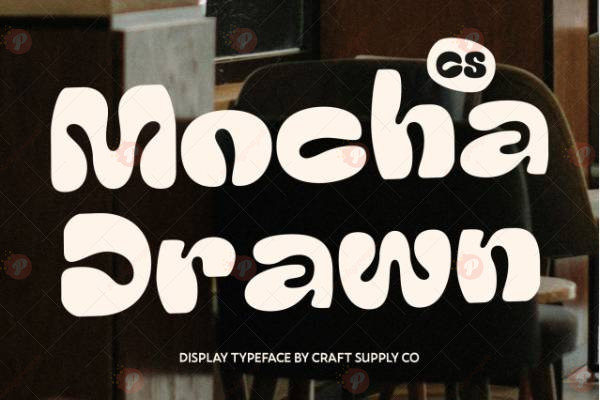
The CS Mocha Drawn Font is a hand-drawn and creative typeface, perfect for posters, social media graphics, logos, branding, greeting cards, and display typography. Its organic and artistic style brings charm, personality, and a handcrafted feel to every design.
Ideal for digital and print projects, CS Mocha Drawn makes your work visually distinctive, adding a playful yet professional touch.
Style: Hand-Drawn / Creative / Display Typeface
Perfect for: Posters, Social Media Graphics, Logos, Branding, Greeting Cards & Display Typography
Add a handcrafted and artistic look to your designs with the CS Mocha Drawn Font.